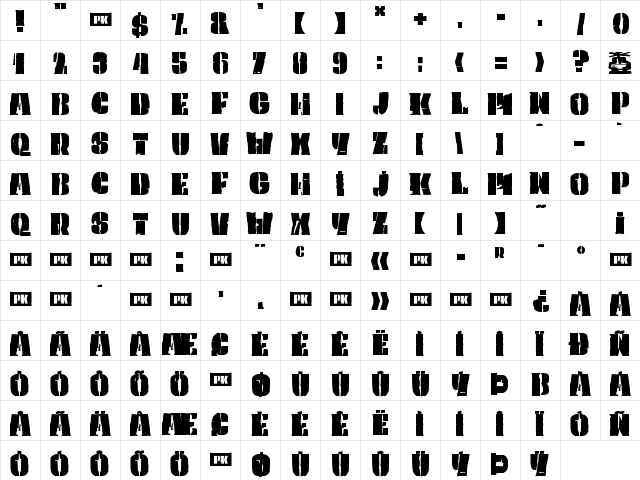
PK Captain Regular
Design Context for PK Captain Typeface
PK Captain is a composed and adaptable typeface that performs quietly and consistently across a wide range of design contexts.